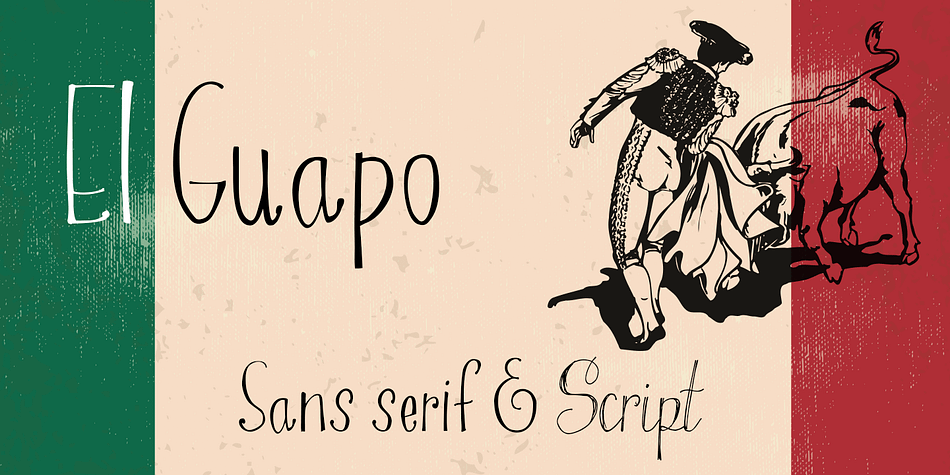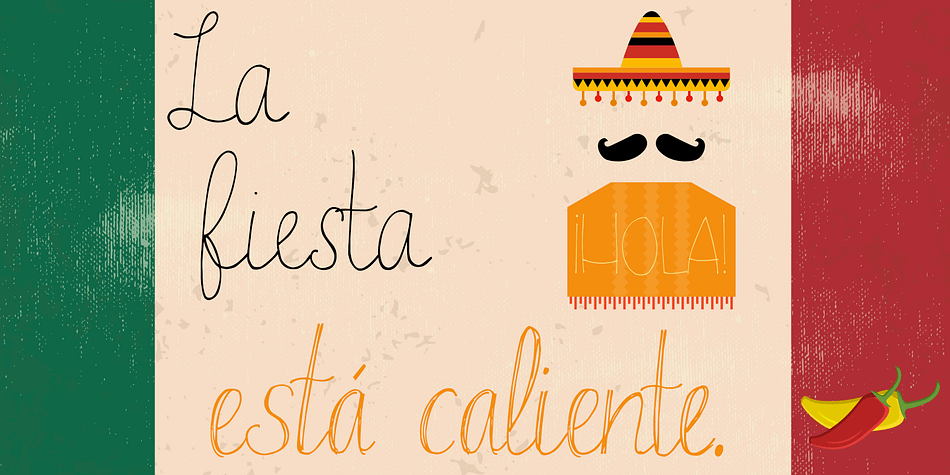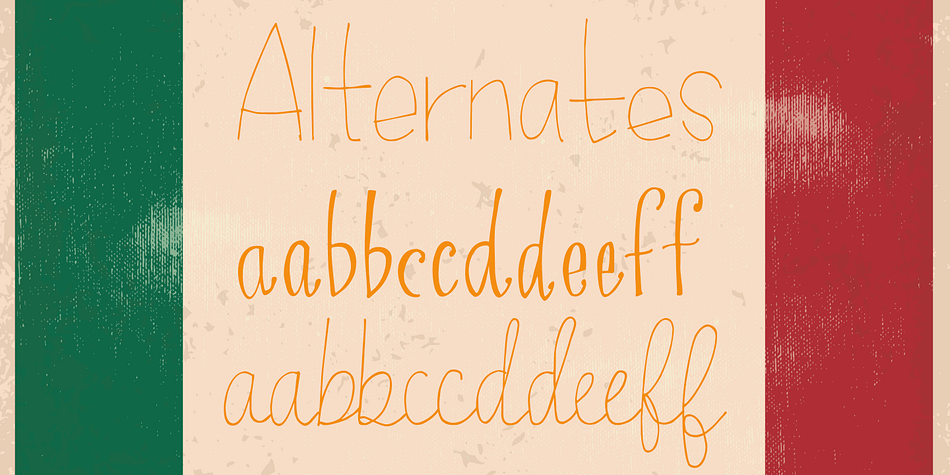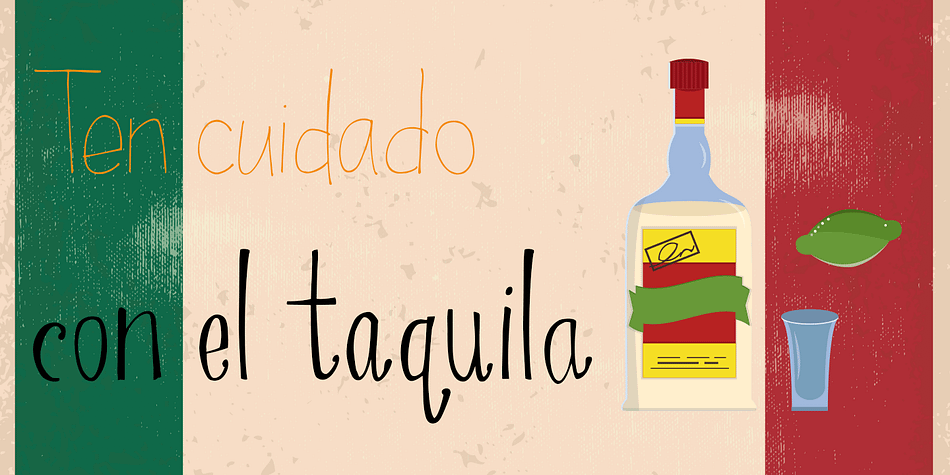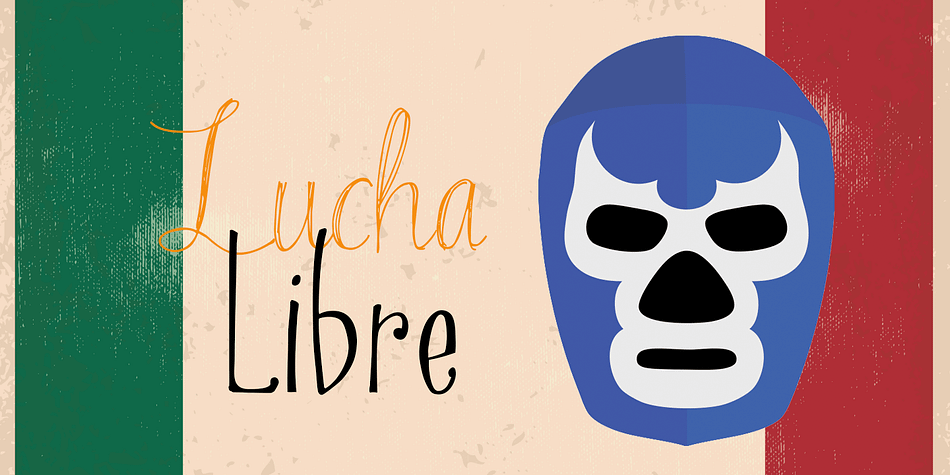
Designed by Erin Solomon, El Guapo is a hand drawn and script font family. This typeface has four styles and was published by A New Machine.
El Guapo is a hand drawn font designed for use wherever a homemade look is desired. It includes a semi-serif and a script face.
The characters were drawn by Erin Solomon and include regular and bold versions.
Each face includes an entirely separate set of of lowercase letters accessible in your glyphs palette. These extra letter will automatically show up with contextual alternates turned on for a more natural, random look.